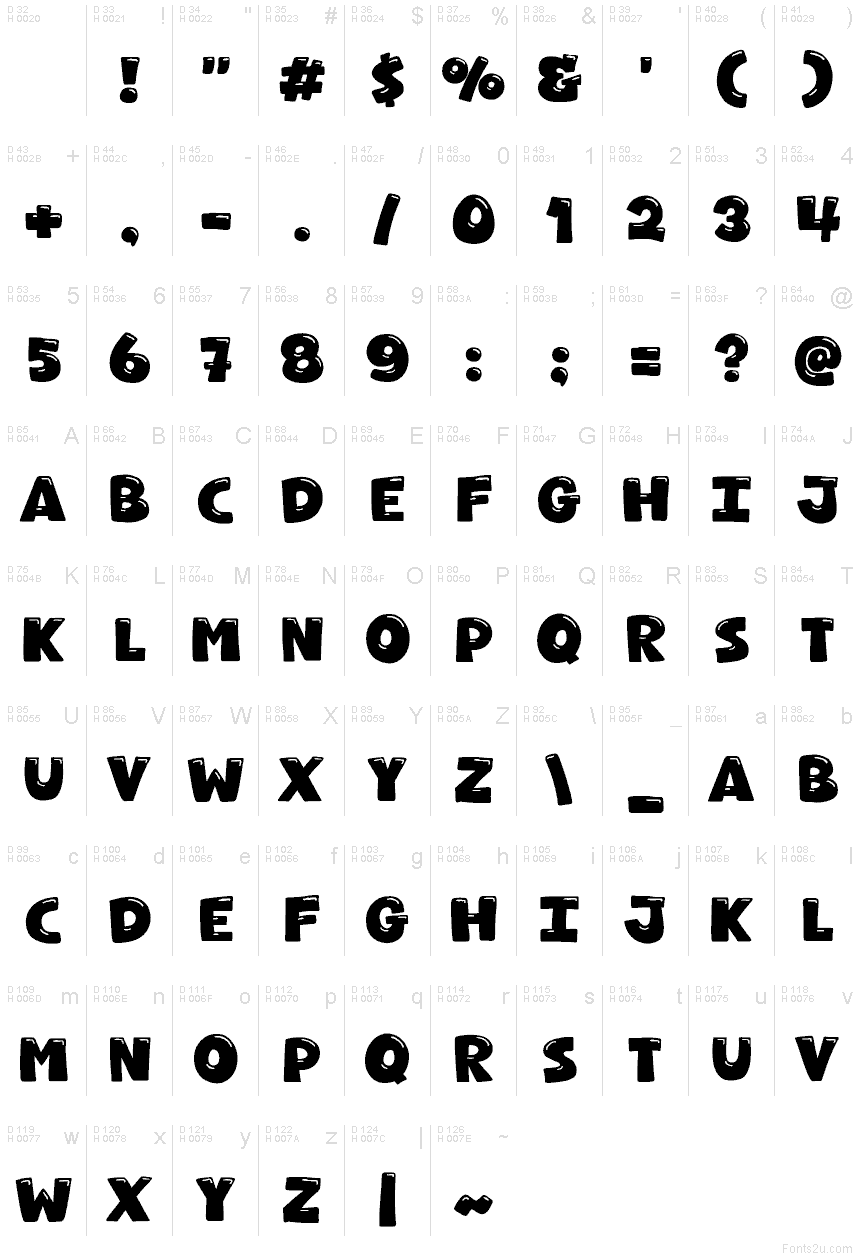
Howdy Koala
Howdy Koala font by Khurasan is an expanded-width, bold cartoon display font with unconventional letter shapes. It bears a clear playful vibe and features all the classic traits of a fun free display font. The style beautifully integrates retro-inspired digital sign-age appearance with accommodated modern approachable appeal.
Howdy Koala is suitable for water bottle stickers, decorative posters, costumes, lunch boxes and bags, cat toys, computer accessories, kids' blankets and toys among other similar uses.